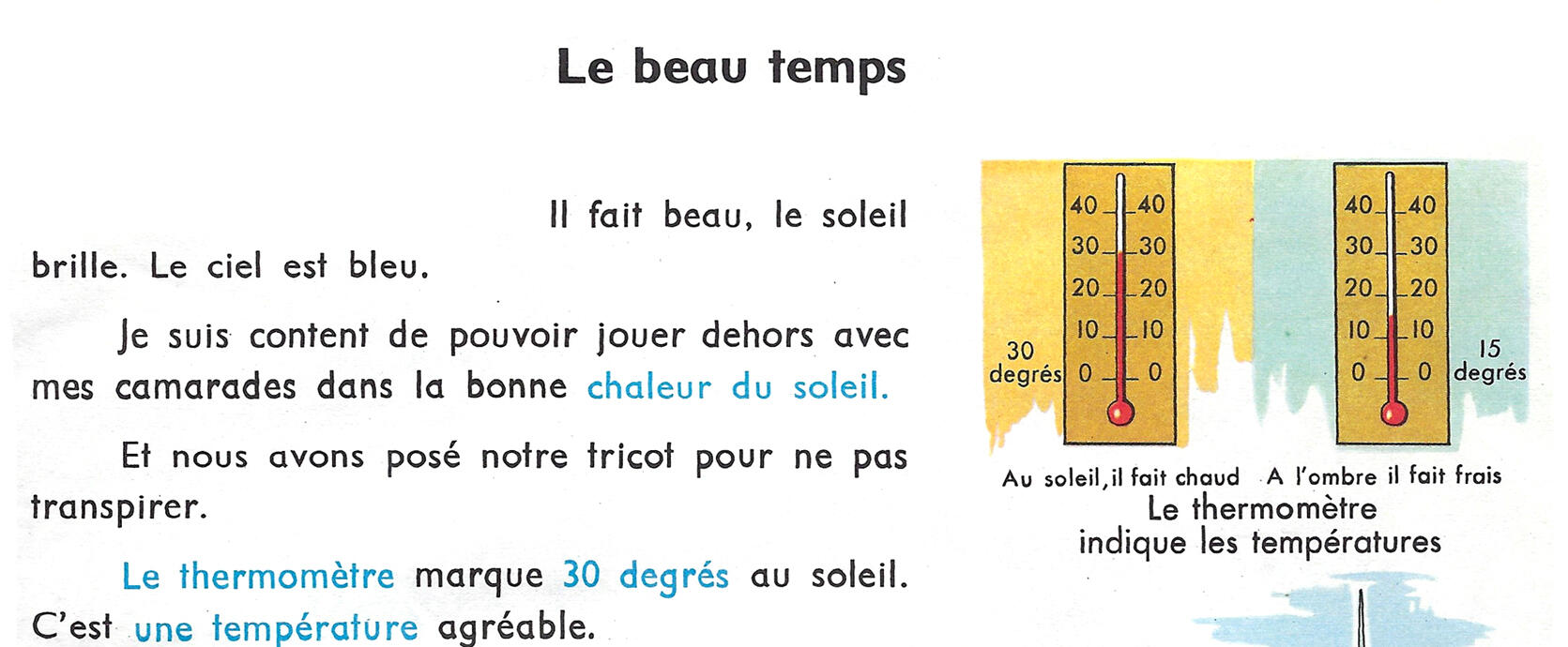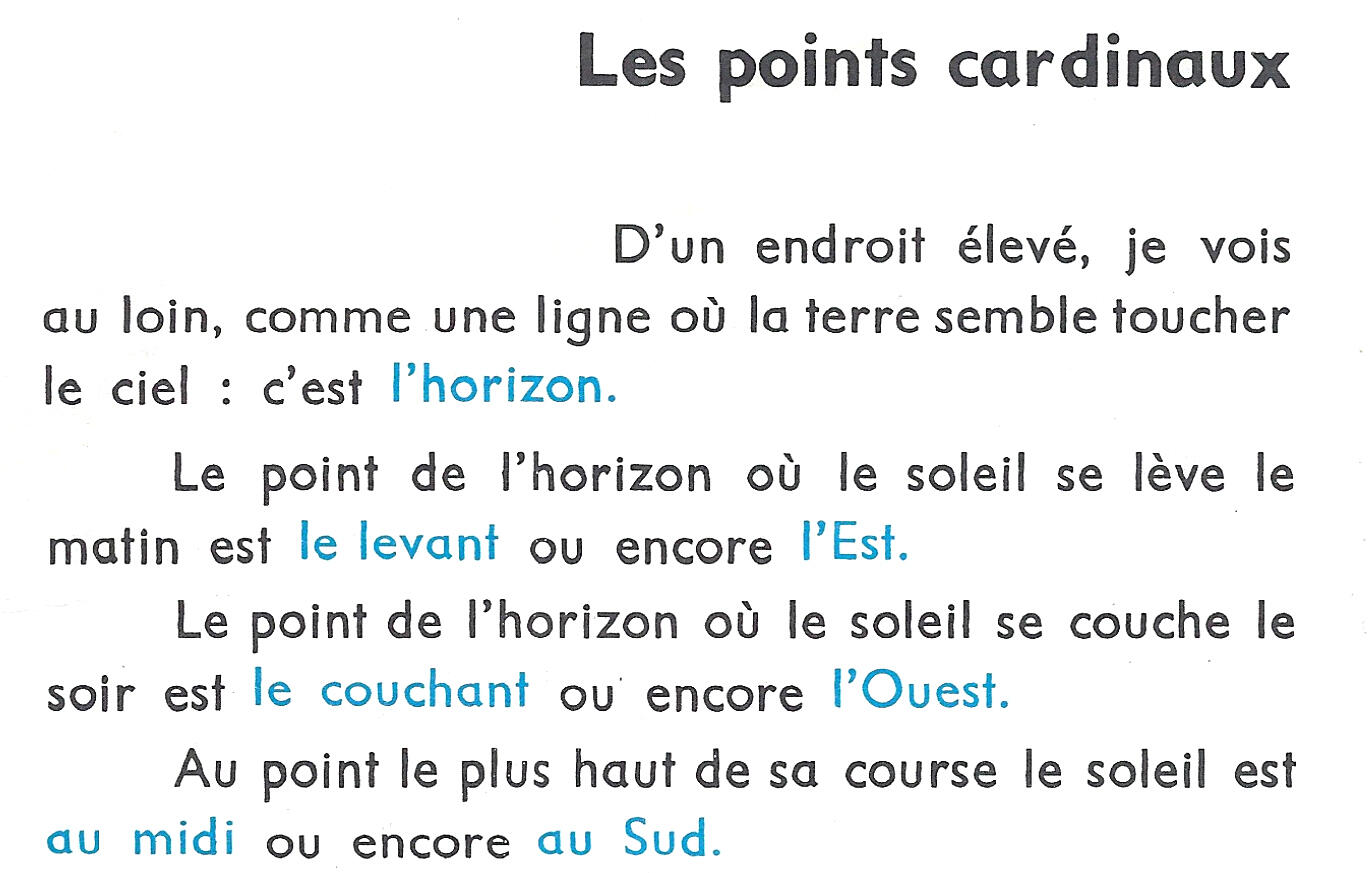
Font identification for a vintage font used in a French schoolbook from the 60's
I need help identifying the typeface used in the title as well as the typeface used in the main text (I don't know if it's part of the same font family but in a lighter form?).
It looks so familiar... However I haven't find any matches with some online tools. The title font looks like a mix between Gill Sans Infant and Twentieth Cent Mt (letters a, u and t are quite specific).
It screams Gill Sans Infant. That should indeed be the source font. It’s just a matter of finding the right version that could have been used at that time. It doesn’t have to match the current digital version perfectly. And the scan is weirdly distorted somehow. Hard to say anything more specific without access to the book.
I have a few Gill Sans fonts but none is a match… I’ll see if there are other suggestions ☺️
I scanned another page from this old schoolbook and tried another bunch of Ai font identifiers with absolutely no match... From afar, the scan is not distorted.
However since this book was made in the 60's without digital help, once you put these pages through an HD lens, some letters become a bit distorted indeed (these pages were not meant to be exposed in HD 😅).
Gill Infant is the closest match however the letters a, u and t are not the same. Is there an alternate version of Gill Infant that I'm not aware of ?
Or is there a similar font from the 50's/60's bearing a strong resemblance to Gill Infant but with identical letters to those mentioned above. ?
This is simply Gill Sans in metal. By 1937, Monotype offered alternate, single-storey (monocular) glyphs for Gill Sans’s ‘a’ and ‘g’. My understanding is that these forms were default forms in the Gill Sans distributed in France and Germany. By the 1960s, many more alts let it emulate Futura and other geometric sans serifs.
From what I can gather, there isn’t a digitisation that offers all these letterforms.
Gill Sans Infant only has |a|g|. The same can be said for Fiendstar, a typeface directly inspired by it.
Gill Sans Nova offers 2 alternate monocular |a|s and one |g|.
Moving towards related typefaces, that may or may not give a similar vibe, Underground offers alternate monocular |a| (tailless) and |g|, while Mr. Eaves Modern, with alternate |a|, has almost all of them, including the |t|, but excluding the |u|.